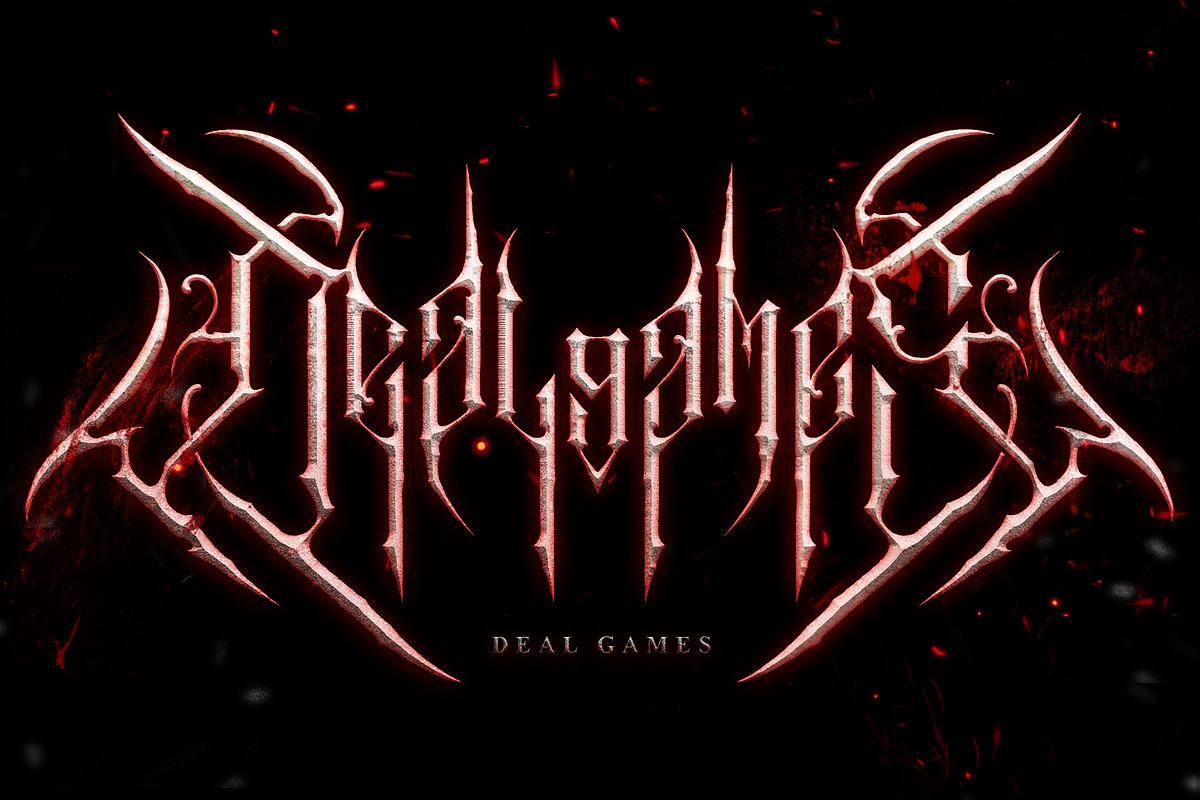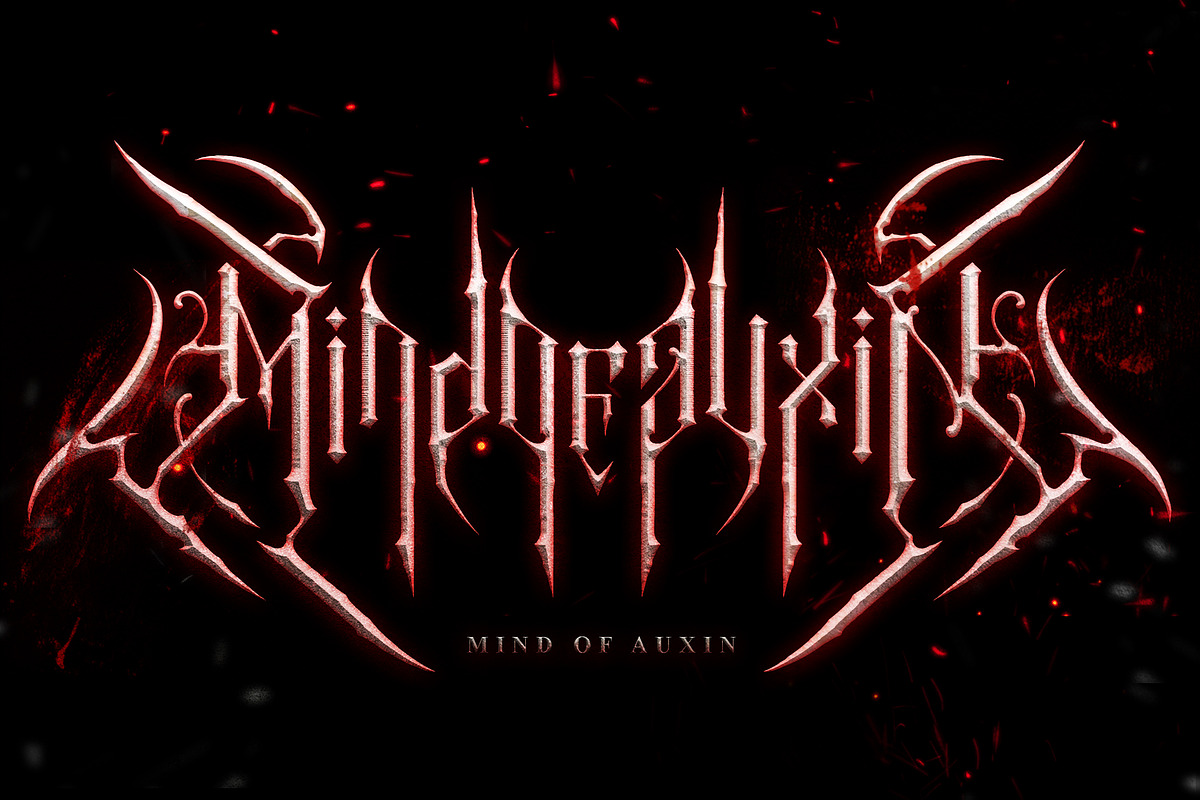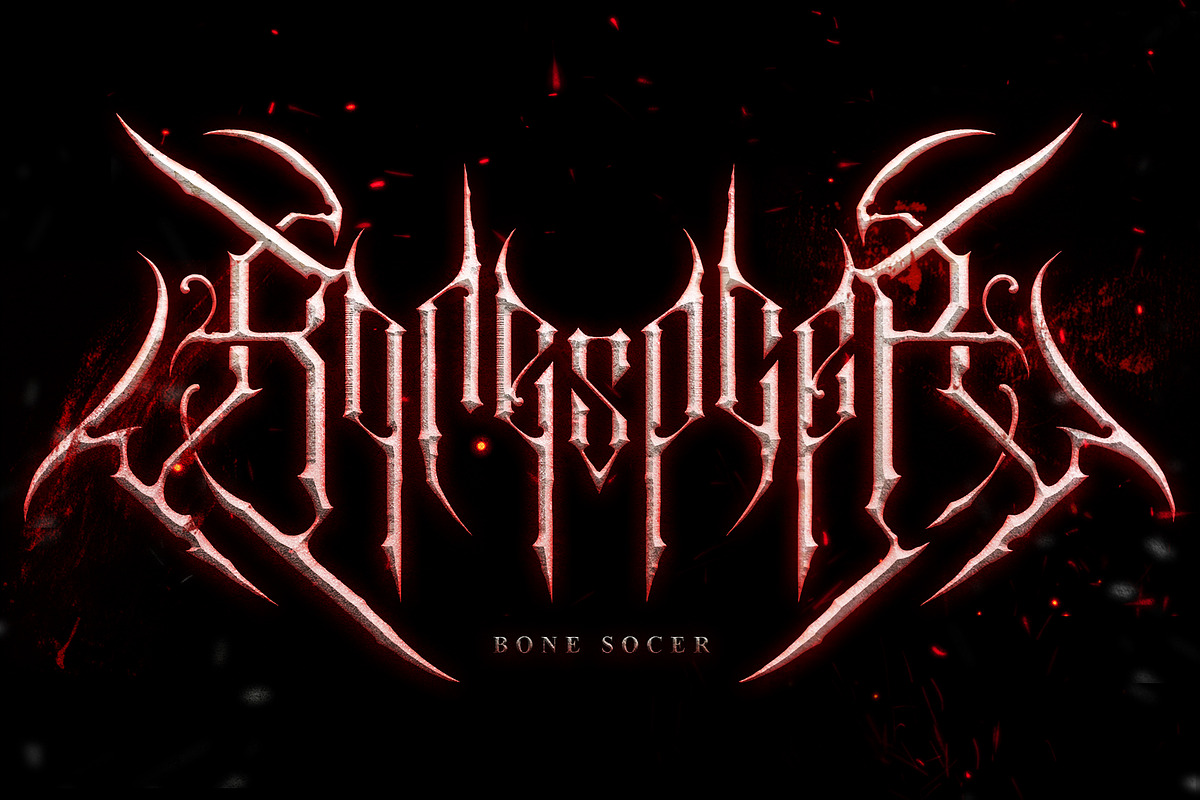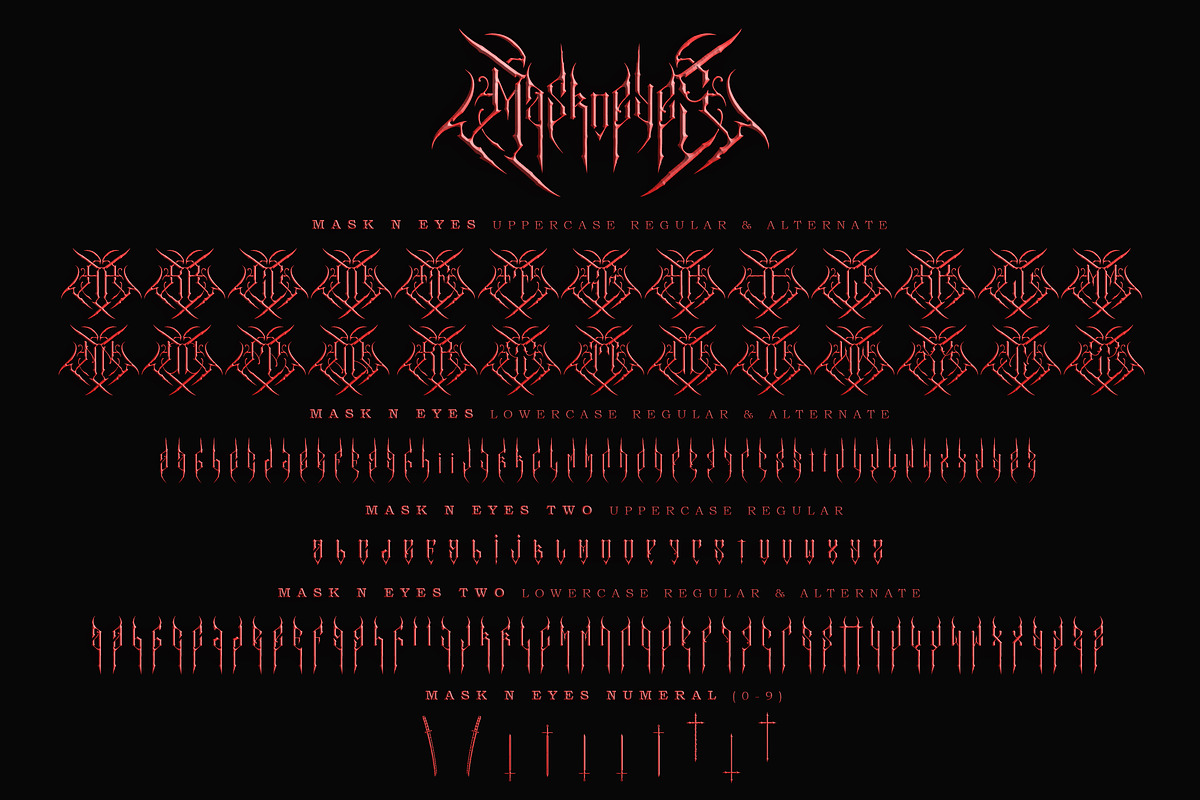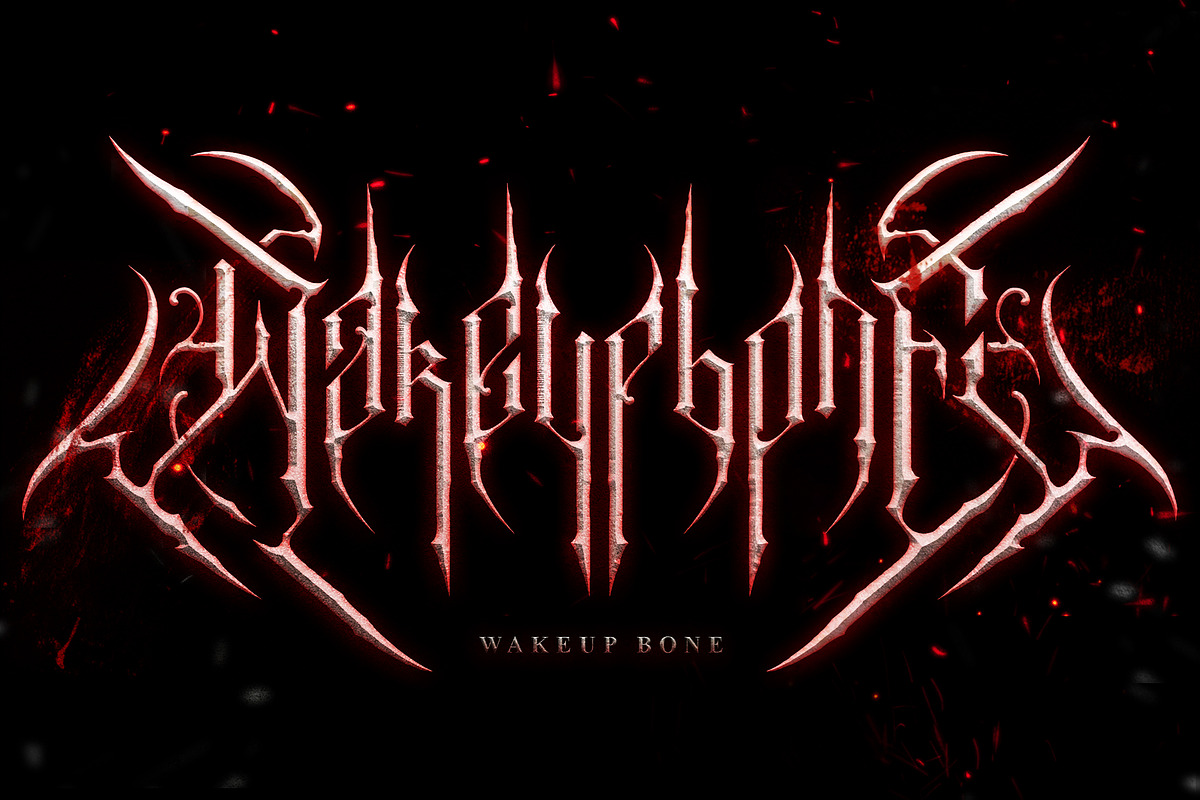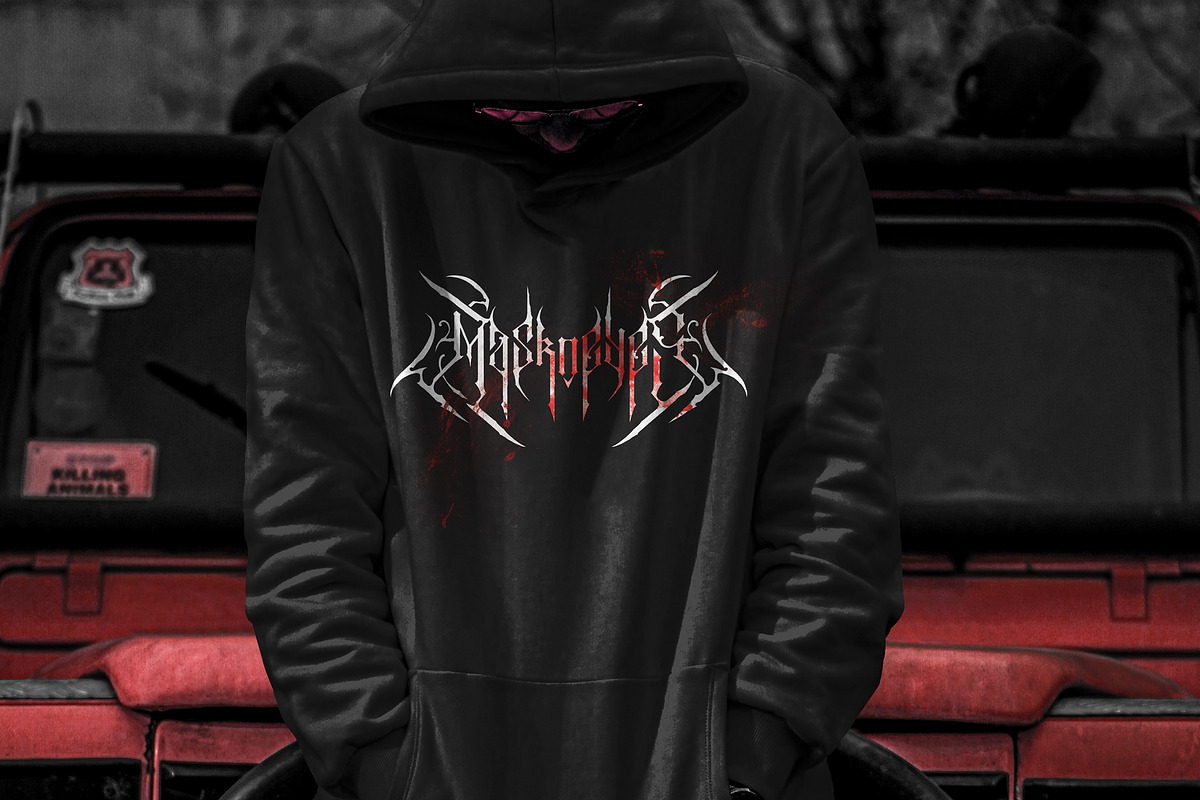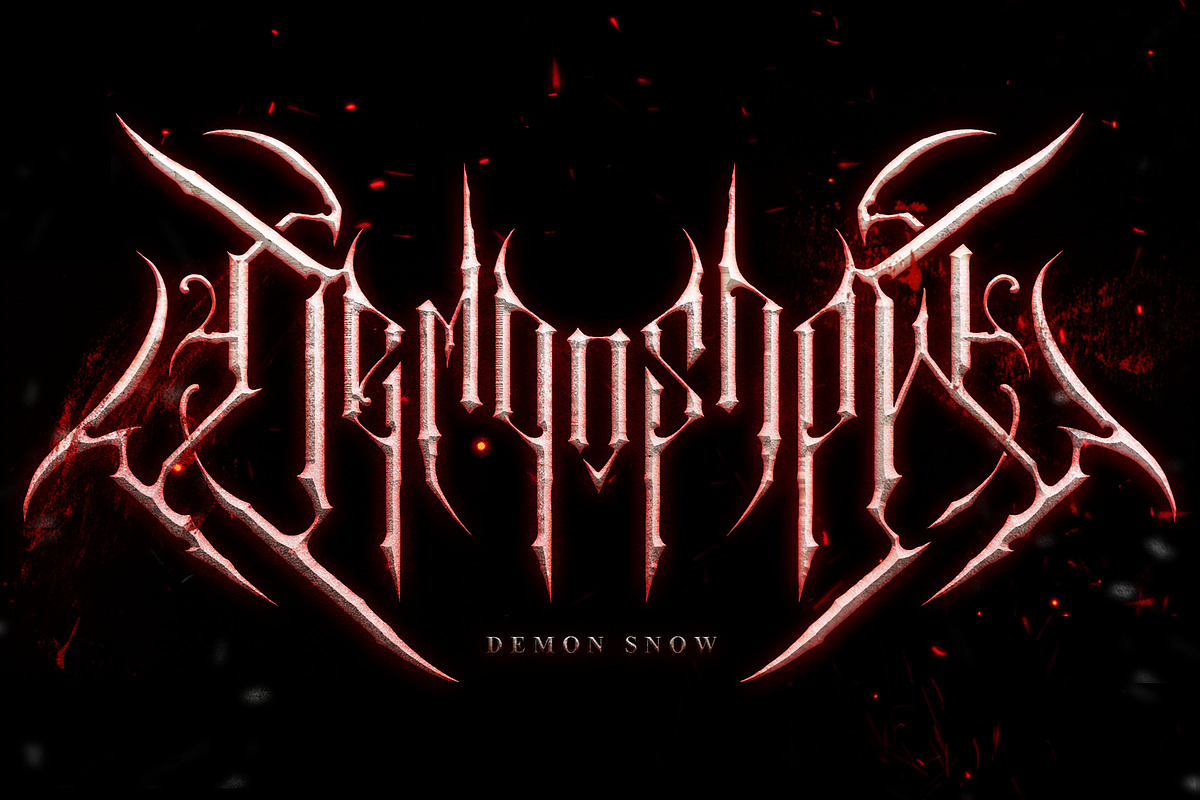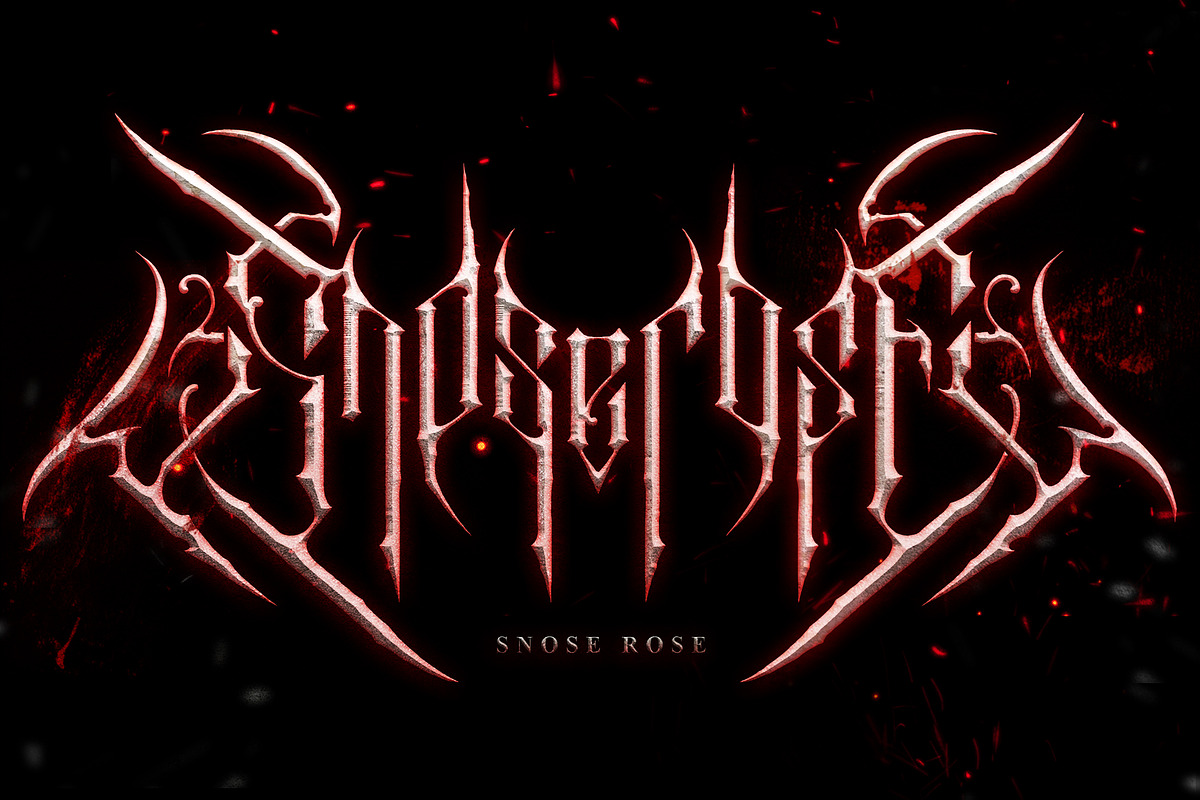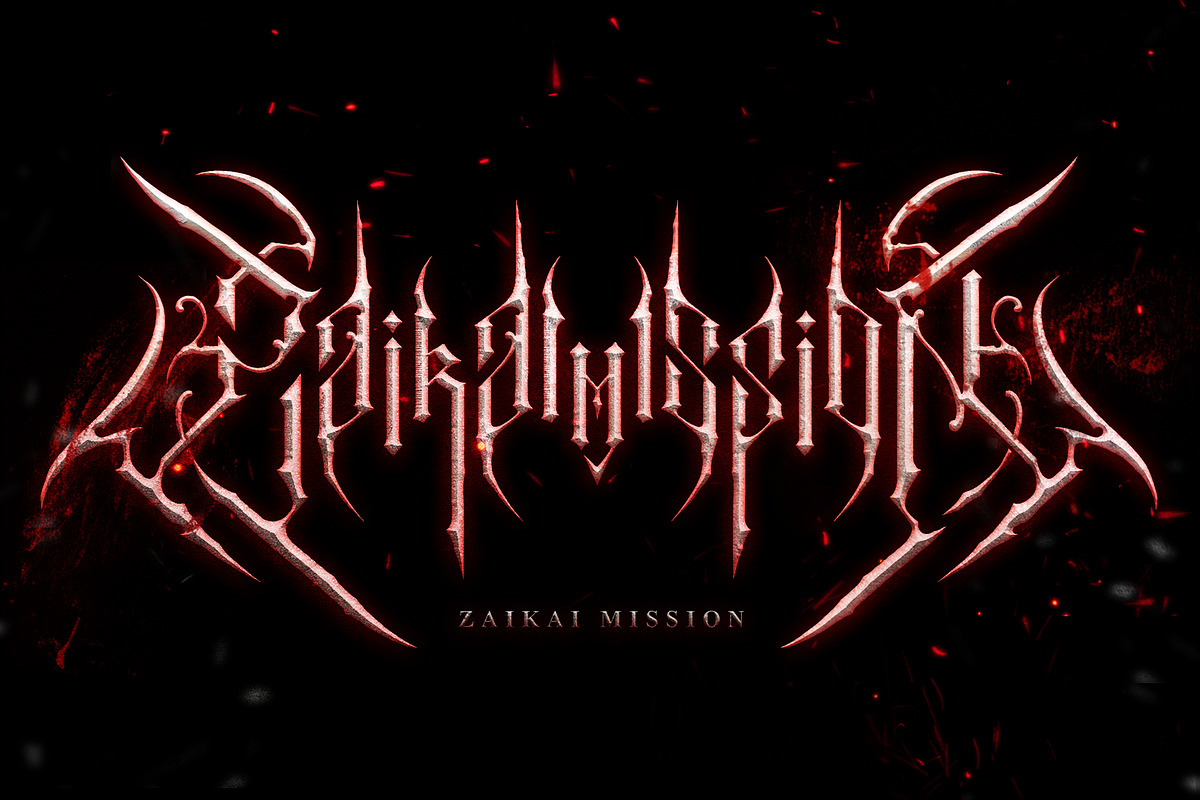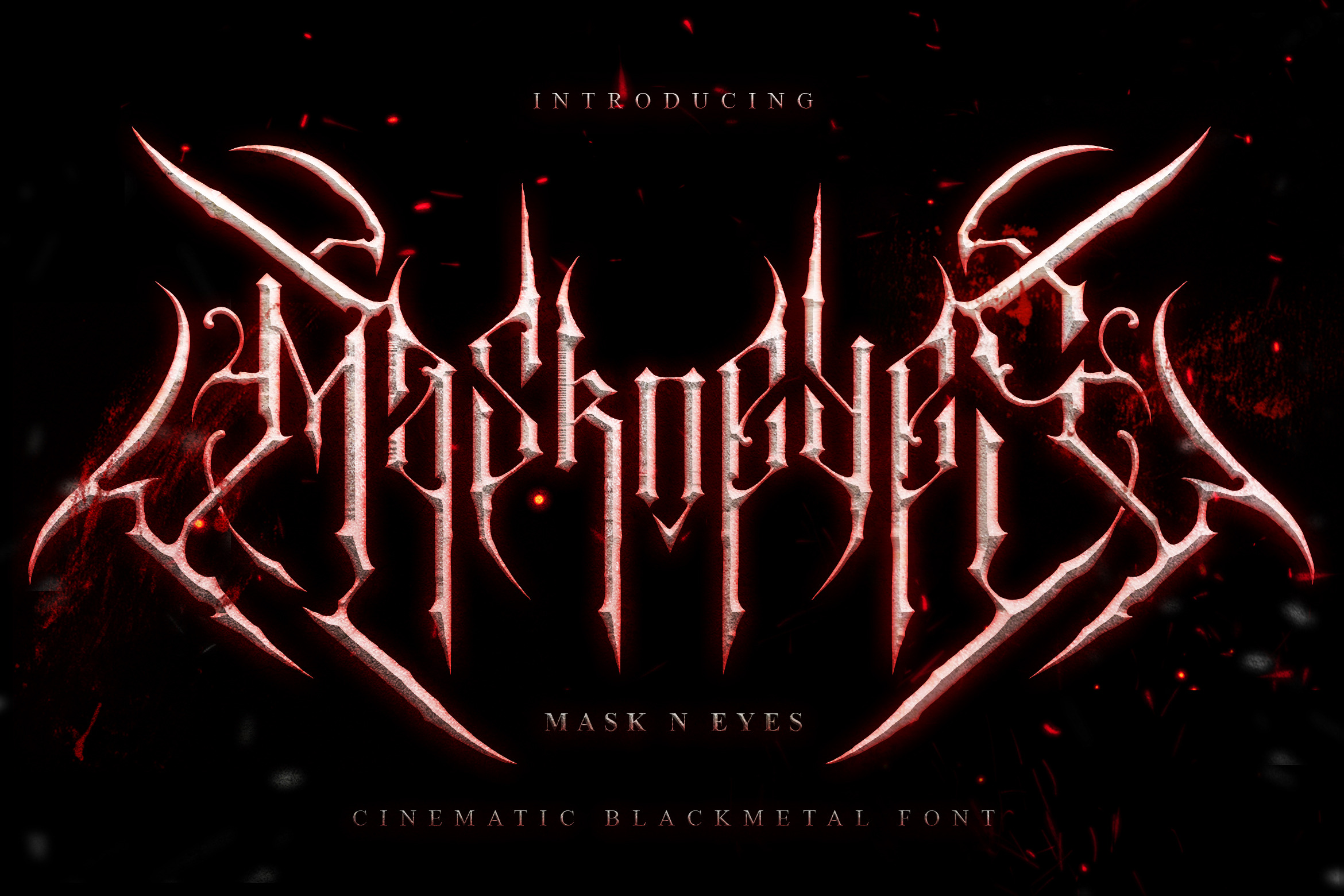
MasknEyes Cinematic Blackmetal Font
Mask n eyes is a blackmetal font that has a cinematic feel. This font combines blackletter and blackmetal styles so it has an elegant, cool and frightening impression. Mask n eyes font is suitable for band logos, apparel, song titles, and movie titles.
-To access symbols, just type: 1, 2, 3, 4, 5, 6, 7, 8, 9
-Other variations of letter (i), just type : ! and ?